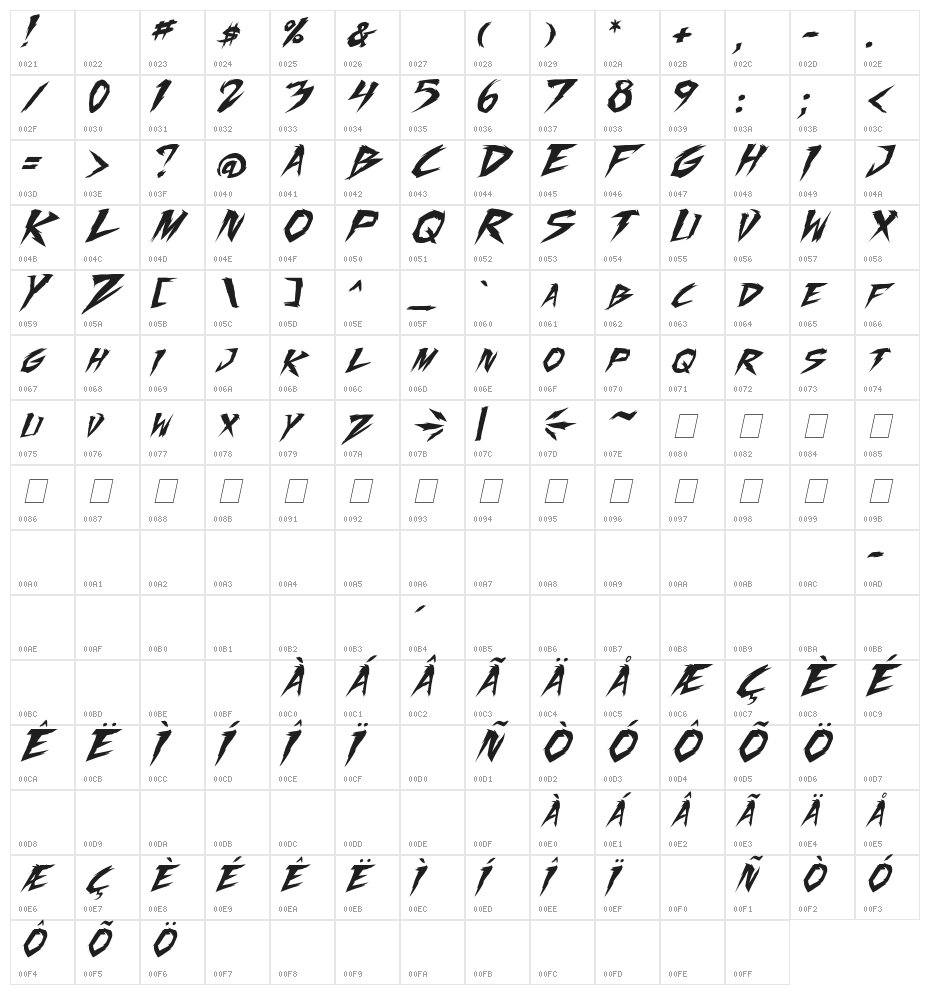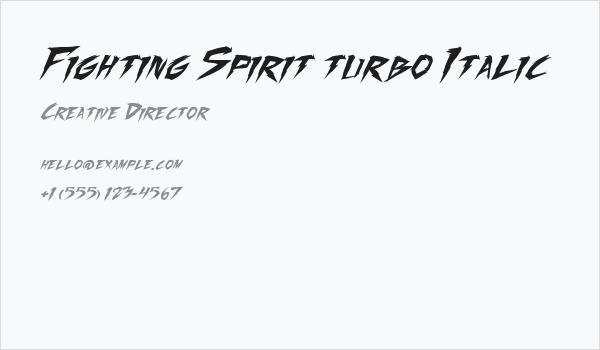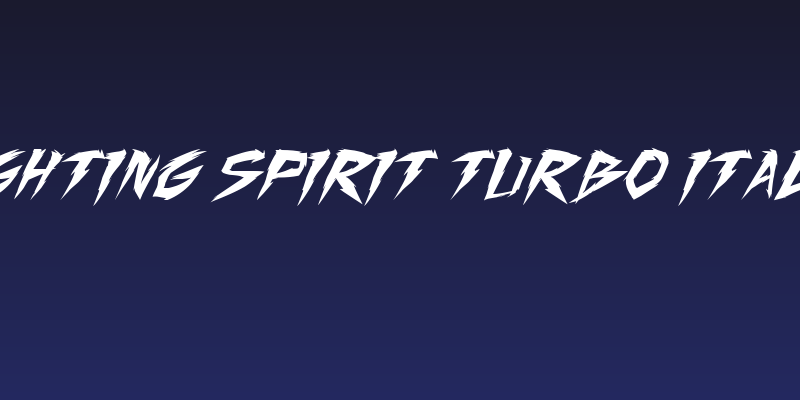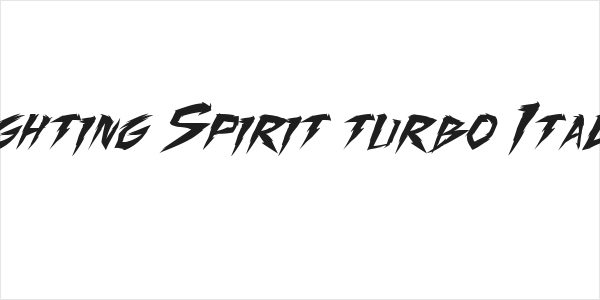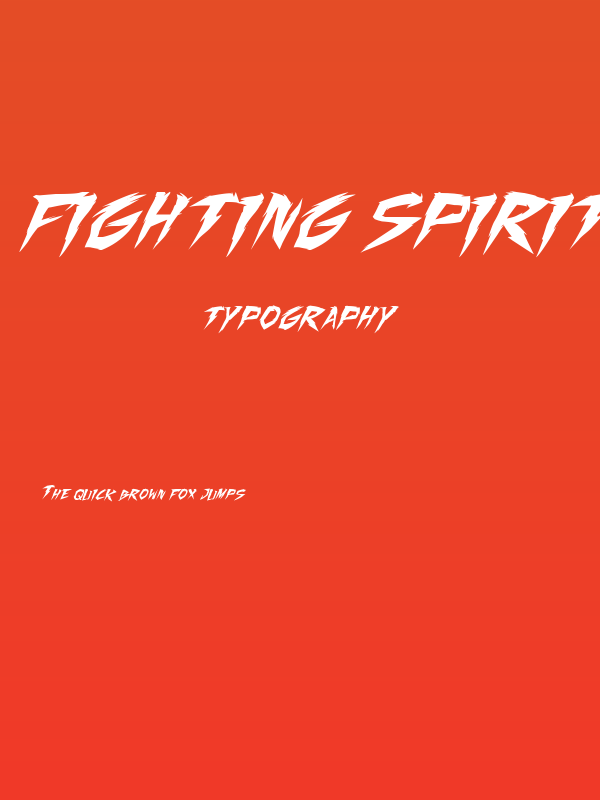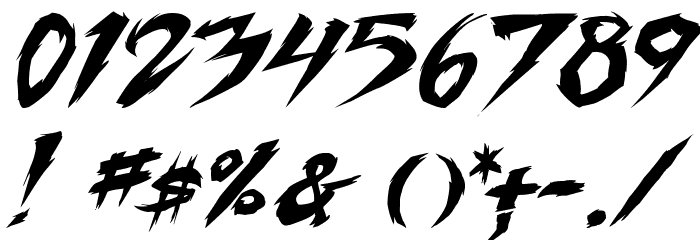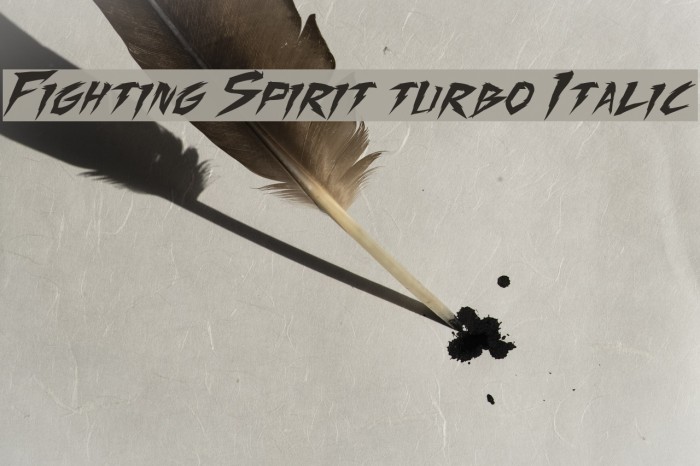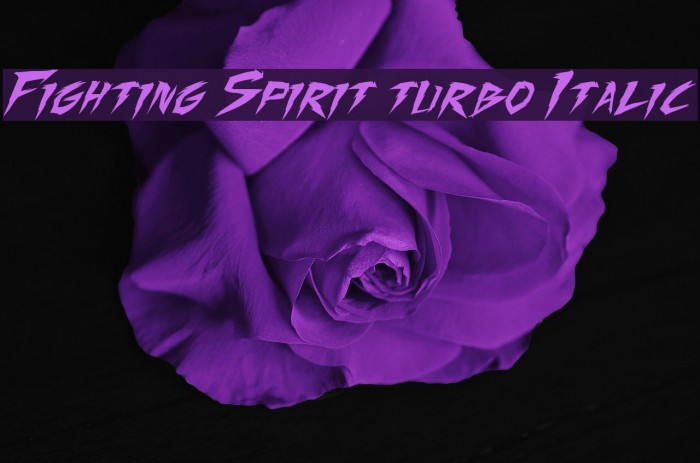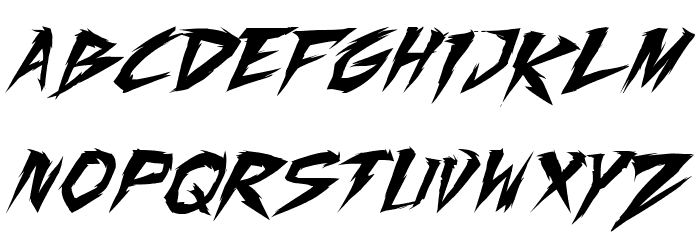
Fighting Spirit turbo Italic Font
Fighting Spirit turbo Italic Description
This font exudes a dynamic and aggressive energy, characterized by sharp, angular strokes and a bold, italicized form. The letters are designed with a sense of motion, as if they are slicing through the air, which gives the font a turbocharged appearance. The uppercase and lowercase letters maintain a consistent style, with exaggerated serifs and pointed edges that enhance the overall fierce look. Numbers and special characters follow the same aesthetic, ensuring a cohesive design. This font is perfect for projects that require a strong, impactful presence.
| Proposed Projects | Ideal for sports branding, action movie posters, video game titles, and any project needing a bold, energetic typeface. |